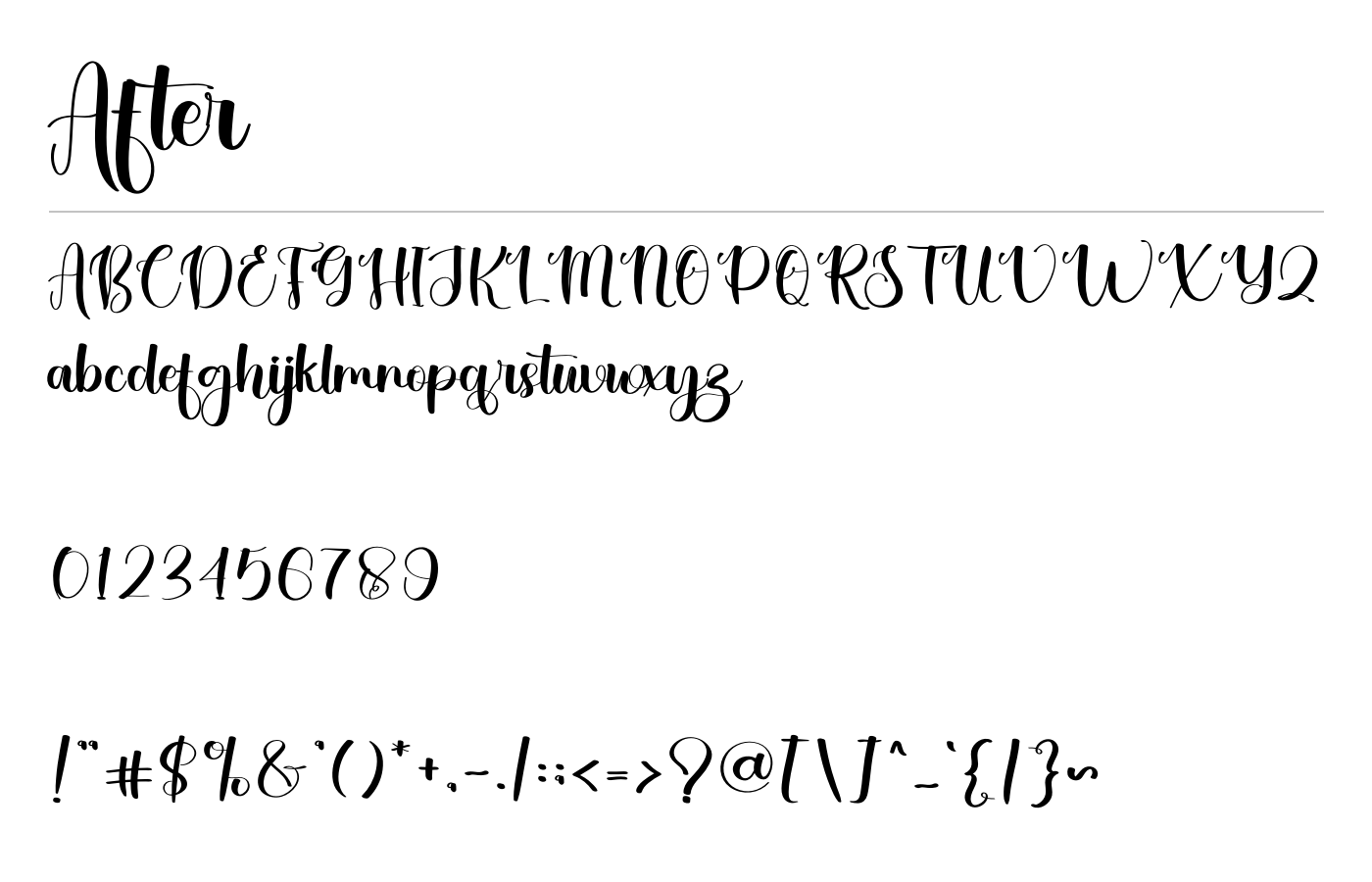
After Font is a playful, elegant script typeface with a lively, hand-drawn feel, featuring expressive strokes that vary in weight and smooth flourishes throughout the uppercase and lowercase letters. Its tall, narrow forms and swirly details make it an excellent choice for creative branding, invitations, and headlines where a stylish, whimsical touch is desired. This font shines in projects that need a blend of sophistication and personality, especially in fashion, beauty, and artistic contexts.
After Font
About After Font